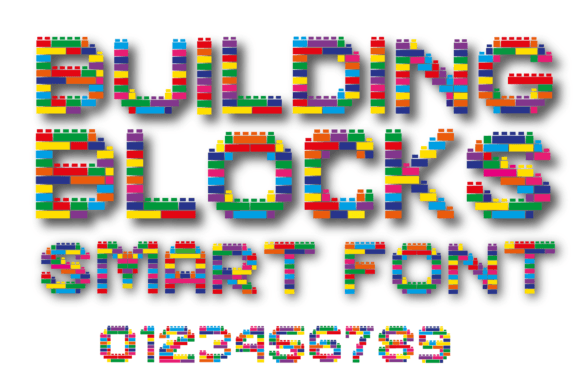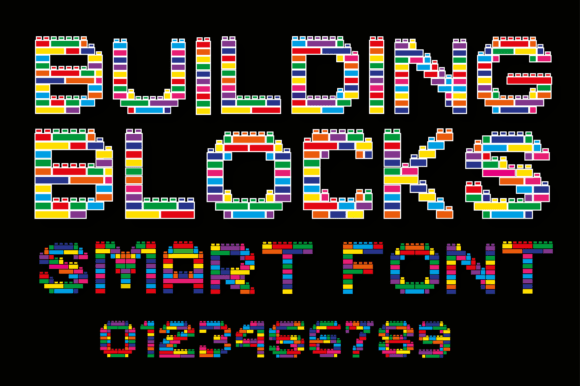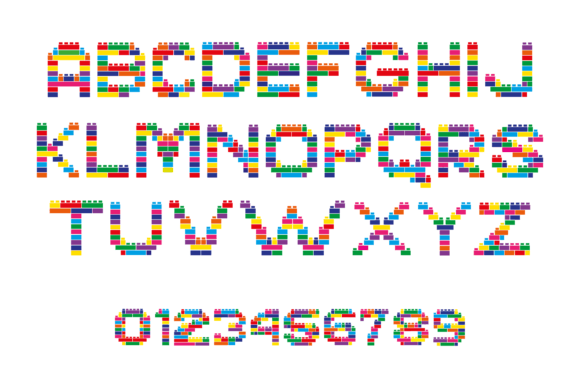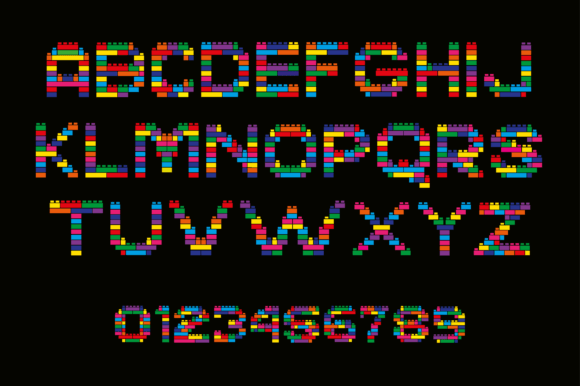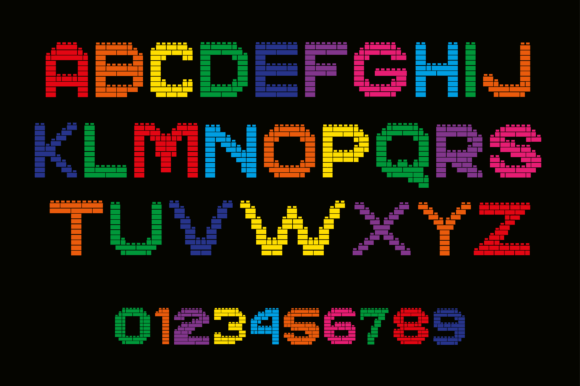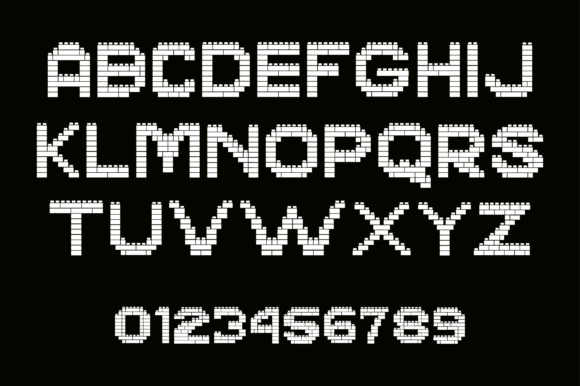
Introducing Building Blocks Smart Font: The Ultimate Game-Changer for Designers
Are you a designer or crafter looking for a font that can add a touch of modernity and futurism to your projects? Look no further than the Building Blocks Smart Font. This game-themed display font is perfect for creating designs related to education, technology, or gaming, and its blocky and futuristic letters are sure to capture attention.
What Makes Building Blocks Smart Font So Special?
The Building Blocks Smart Font features sharp edges and geometric details, giving it a modern and high-tech personality. Its blocky letters are reminiscent of video games and digital technology, making it perfect for video game titles, educational materials, and other projects that require a futuristic and dynamic font.
Perfect for Education, Technology, and Gaming Designs
Whether you’re creating educational materials, designing a logo for a tech company, or developing a video game, the Building Blocks Smart Font is the perfect choice. Its futuristic and dynamic personality is sure to appeal to a wide range of audiences, from kids to adults. The font’s versatility makes it ideal for various design projects, including:
- Video game titles and logos
- Educational materials, such as textbooks, workbooks, and activity sheets
- Technology-related designs, such as logos, brochures, and website headers
- Advertising and marketing materials, such as billboards, posters, and social media graphics
Key Features of Building Blocks Smart Font
The Building Blocks Smart Font comes with several key features that make it a must-have for designers and crafters:
- Blocky and futuristic letters: The font features sharp edges and geometric details, giving it a modern and high-tech personality.
- Single color font: The font is available as a single color font, with color and multicolor versions of the characters available in the bonus files.
- High-tech personality: The font’s gaming and high-tech personality is sure to capture attention and add a touch of modernity to your designs.
Why Choose Building Blocks Smart Font?
So why choose the Building Blocks Smart Font over other fonts on the market? Here are just a few reasons:
- Unique and eye-catching design: The font’s blocky and futuristic letters are sure to capture attention and add a touch of modernity to your designs.
- Versatility: The font is perfect for a wide range of design projects, from education and technology to gaming and advertising.
- High-quality font: The font is designed to be clear and legible, making it perfect for use in a variety of design projects.
In conclusion, the Building Blocks Smart Font is a game-changer for designers and crafters looking to add a touch of modernity and futurism to their projects. Its blocky and futuristic letters, sharp edges, and geometric details make it perfect for education, technology, and gaming designs. With its high-tech personality and versatility, this font is sure to capture attention and take your designs to the next level.